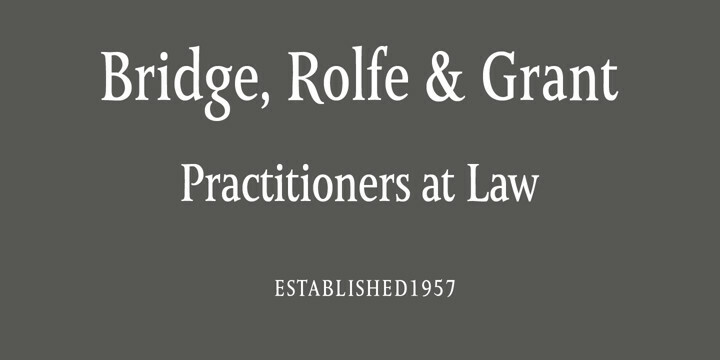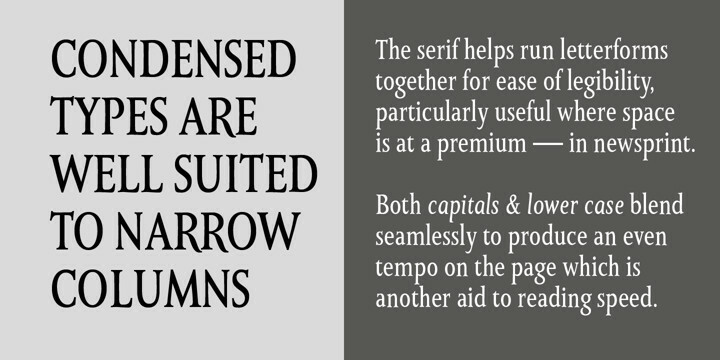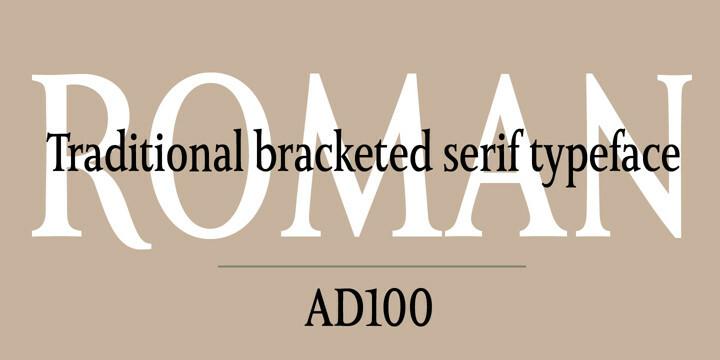
Monkton Book Condensed Font Family
Monkton Book Condensed Font FamilyPacking more copy in a narrow space is the main reason for using a condensed type. Characters with a more ovular shape tend to be less wide than their circular counterparts and will allow for more letters per line. In narrow columns for example, this typeface can provide up to 25% more copy than the regular typeface in the same space.
Another reason is when a larger type size is called for — used sparingly it is useful for headings or headlines.
For emphasis, narrower letters can provide a stark contrast in the flow of reading, creating impact while retaining typographic character. Condensed types can specially useful in tables and charts because typically both use few words in each block. If space now allows, you may think about the luxury of a larger point size. This optimizes space while keeping your typography more easily legible.